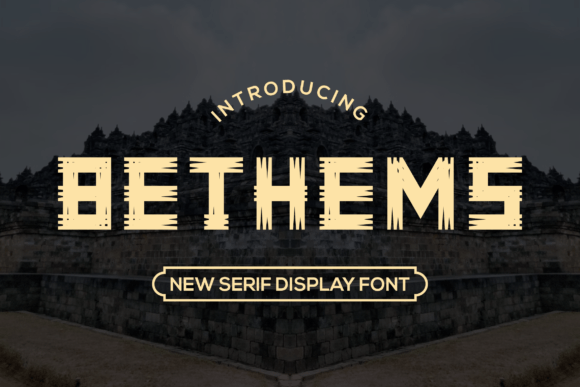
Unlock Your Creativity with the Whimsical Bethems Font
Have you ever been working on a project and suddenly, a spark of creativity hits you? The ideas start flowing, and before you know it, your design is transformed into something truly unique and captivating. For designers, those moments are what make the job so rewarding. And that’s exactly what the Bethems Font is designed to help you achieve.
This fun and quirky display font is the perfect tool to add a touch of personality to your designs. With its bold and whimsical style, Bethems Font has the power to elevate any creation, from logos to advertisements, and everything in between. Whether you’re a seasoned designer or just starting out, the Bethems Font is a valuable addition to your toolkit, offering endless possibilities for creative expression.
Bethems Font Key Features
- Font Family: Bethems Font is a serif font family designed for body text and titles.
- Character Set: Includes a wide range of characters, including Latin, Cyrillic, and Greek alphabets, as well as punctuation and symbols.
- Unique Characteristic: Bethems Font features a distinctive x-height and a subtle, nuanced flair at the terminals of the strokes, giving it a unique and elegant appearance.
Bethems Font Review
I recently had the chance to work with Bethems Font, and I must say it was a mixed bag. Here are my honest thoughts:
- Unique aesthetic: Bethems Font has a distinct, elegant feel to it that sets it apart from more common fonts.
- Good for headings: The font’s bold lines and sharp edges make it perfect for titles and headings, adding a touch of sophistication to any design.
- Legibility: Despite its unique style, Bethems Font is surprisingly legible, making it a great choice for body text in certain contexts.
- Not suitable for body text: While Bethems Font is legible, it’s not ideal for large blocks of text. The font’s unique style can make it fatiguing to read.
- Limited character set: I noticed that Bethems Font is missing some special characters, which can be a problem for designers who need to use these characters frequently.
Bethems Font is a solid choice for designers who want to add a touch of elegance to their designs. However, it’s not a versatile font that can be used in every situation. If you’re looking for a font to use for headings or titles, Bethems Font is a great option. But for body text, you may want to consider a more traditional font.
Bethems Font: A Practical Application Guide
To get the most out of Bethems Font, experiment with different font sizes, styles, and colors. Use it to create bold headlines, elegant titles, or whimsical text effects.
Bethems Font is ideal for:
- Designing wedding invitations and stationery
- Creating custom typography for branding and marketing materials
- Adding a touch of elegance to presentations and reports
Alternatives to Bethems Font for Designers
Open Sans is a modern sans-serif font designed by Steve Matteson. It is suitable for digital interfaces, signage, and other applications where readability is essential. When to use: Open Sans is ideal for creating a clean and minimalist aesthetic, making it perfect for modern websites, apps, and digital products.
Comparison to Bethems Font: Open Sans has a more open and airy feel compared to Bethems Font, which is more condensed. Open Sans is also more versatile and can be used in a wide range of applications, whereas Bethems Font is more suited for specific design contexts.